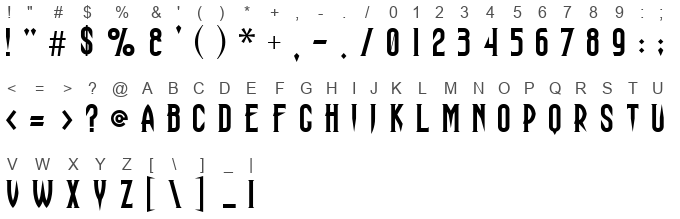
Haunting Attraction is not a font that can be easily overlooked. Crafted with a masterful touch, it embodies a uniquely ethereal and captivating essence that seems to draw the eye and imagination into its intricately designed characters. The font, as its name suggests, focuses on evoking a sense of mystery and allure, reminiscent of tales whispered in the dim light of forgotten places or the enchanting allure of a misty graveyard at midnight.
Each character in the Haunting Attraction font is crafted with a delicate balance of elegance and foreboding. The letters are elongated, with graceful curves that stretch like the ethereal fingers of spirits reaching out from beyond. This is accompanied by sharp, unexpected twists and turns in the characters, mimicking the unpredictable nature of a haunting or a seductive mystery that refuses to be unraveled. The letters seem to dance on the line between the material world and the supernatural, giving any text written in this font an undeniable presence that is both beautiful and slightly unsettling.
Furthermore, the font often incorporates subtle thematic elements that enhance its haunted aesthetic. For example, the tails of certain letters might end in wispy lines, suggesting a ghostly trail or a soft whisper of smoke. In some variations, the inclusion of decorative elements such as thorns, vines, or faint, eerie embellishments around the characters adds to the overall sense of a dark, captivating charm. Typography in Haunting Attraction transcends mere text; it becomes an immersive experience, inviting readers to step into a world where beauty intertwines with the macabre, and attraction borders on obsession. This font is perfectly suited for projects that aim to leave a lasting impression, weaving a spell of fascination and wonder that lingers long after the words are read.
Haunting Attraction